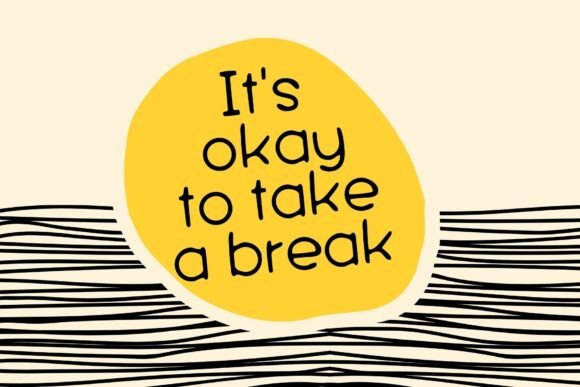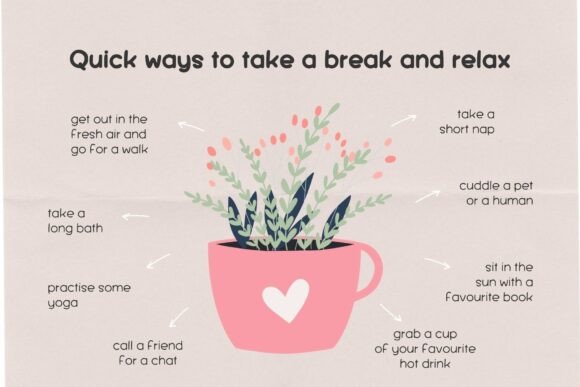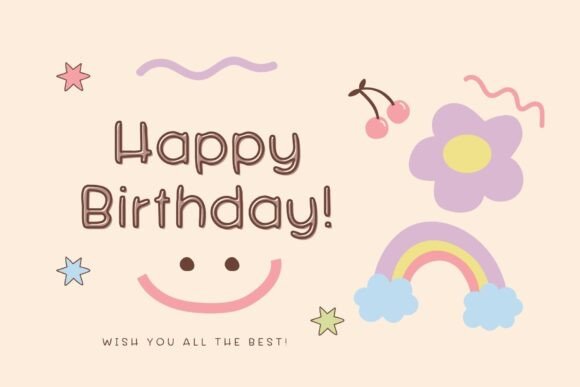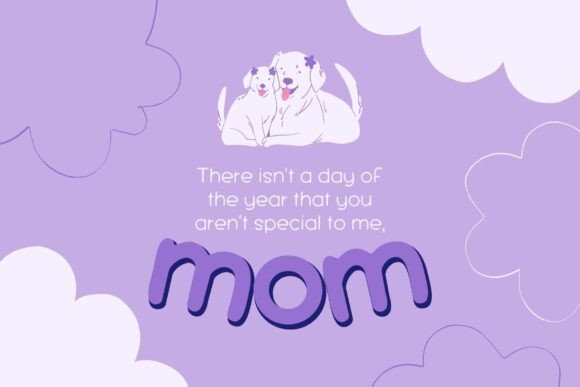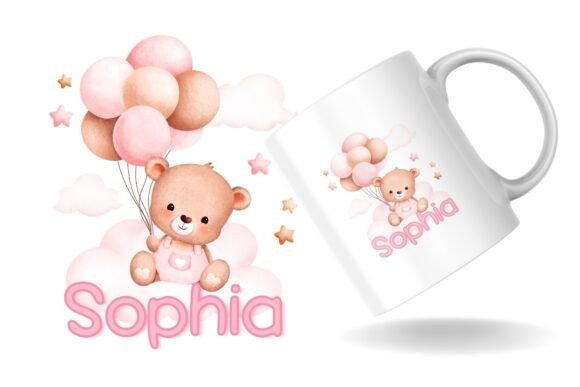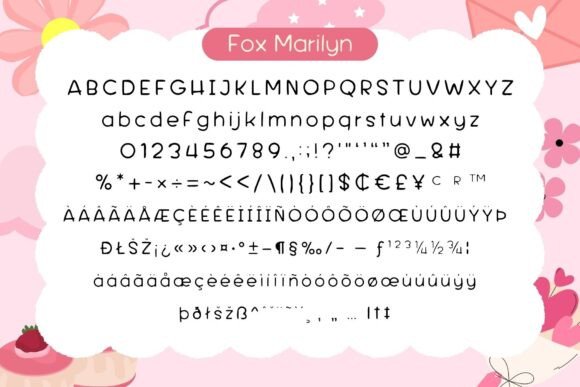
Introducing Fox Morning Font: The Perfect Playful and Cheerful Handwritten Font
Are you looking for a font that can add a touch of warmth, positivity, and creativity to your projects? Look no further than Fox Morning Font! This playful and cheerful handwritten font is perfect for designers and crafters who want to convey a sense of joy and friendliness in their work. In this article, we’ll take a closer look at Fox Morning Font and explore its features, benefits, and uses.
What is Fox Morning Font?
Fox Morning Font is a beautiful, handwritten font that is designed to bring a smile to your face. Its bright and clean design ensures legibility, making it perfect for a wide range of projects, from logos and children’s books to packaging and social media graphics. The font’s playful and cheerful vibe makes it ideal for projects that aim to convey warmth, positivity, and creativity.
Key Features of Fox Morning Font
So, what makes Fox Morning Font so special? Here are some of its key features:
- Playful and Cheerful Design: Fox Morning Font has a fun and lively design that is sure to grab attention and bring a smile to your face.
- Handwritten Style: The font’s handwritten style gives it a personal and friendly touch, making it perfect for projects that aim to convey warmth and positivity.
- High Legibility: Despite its playful design, Fox Morning Font is highly legible, making it perfect for use in a wide range of projects, from body text to headings.
- Clean and Modern: The font’s clean and modern design ensures that it will fit in perfectly with your brand’s aesthetic, whether you’re going for a retro or modern look.
Uses of Fox Morning Font
So, what can you use Fox Morning Font for? The possibilities are endless! Here are some ideas to get you started:
- Logos: Fox Morning Font is perfect for creating fun and playful logos that will help your brand stand out.
- Children’s Books: The font’s playful and cheerful design makes it ideal for use in children’s books, where it can help bring stories to life.
- Packaging: Fox Morning Font can add a touch of whimsy and fun to your packaging, making it perfect for brands that want to stand out on store shelves.
- Social Media Graphics: The font’s bright and clean design makes it perfect for use in social media graphics, where it can help grab attention and drive engagement.
Benefits of Using Fox Morning Font
So, why should you choose Fox Morning Font for your next project? Here are some benefits of using this amazing font:
- Adds a Touch of Warmth and Positivity: Fox Morning Font can help add a touch of warmth and positivity to your projects, making them more engaging and effective.
- Perfect for Creative Projects: The font’s playful and cheerful design makes it perfect for creative projects, such as children’s books, logos, and social media graphics.
- Highly Legible: Fox Morning Font is highly legible, making it perfect for use in a wide range of projects, from body text to headings.
| Font Name | Fox Morning Font |
| Author | Fox7 |
In conclusion, Fox Morning Font is a playful and cheerful handwritten font that is perfect for designers and crafters who want to convey warmth, positivity, and creativity in their work. Its bright and clean design ensures legibility, making it perfect for a wide range of projects, from logos and children’s books to packaging and social media graphics. With its highly legible design, ease of use, and versatility, Fox Morning Font is a must-have font for any designer or crafter looking to add a touch of whimsy and fun to their projects.